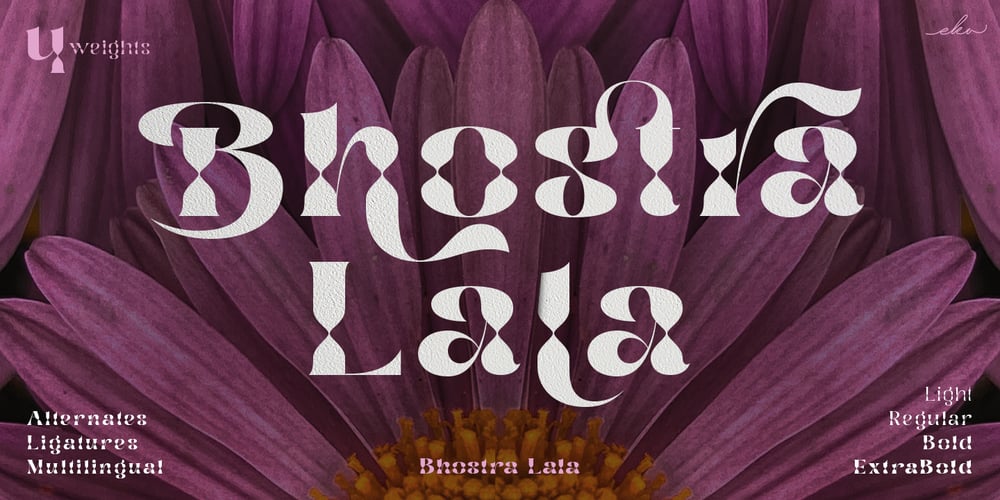
Bhostra Lala
Bhostra Lala font
Bhostra Lala Font Family was designed by Putu Eka Hermawan and published by Ekahermawan. Bhostra Lala contains 4 styles and family package options. Bhostra Lala is an unique and versatile font family. Bhostra Lala comes with alternates characters (PUA Encoded) and ligatures in 4 weights that will support your creativity in creating the perfect design result for many different projects such as logo, branding, poster, magazines, labels, merchandise, invitation, presentation, advertising, quotes and so much more!FEATURES:OpenType supportPlayfull to use (with ligatures and alternates options)Multilingual supportPUA EncodedIf you need support or more information about this itemplease kindly contact me:ekahermawanputu@gmail.comThank you so muchI really hope you enjoy when using it!